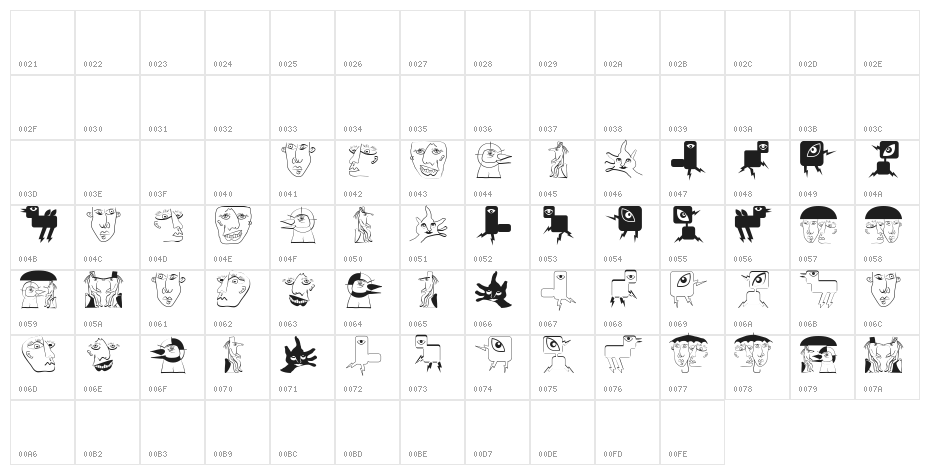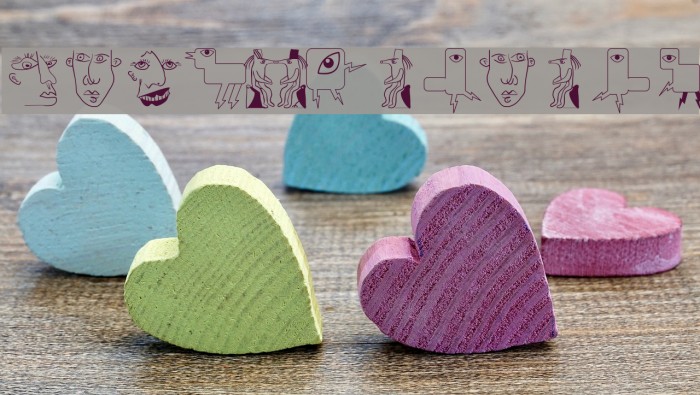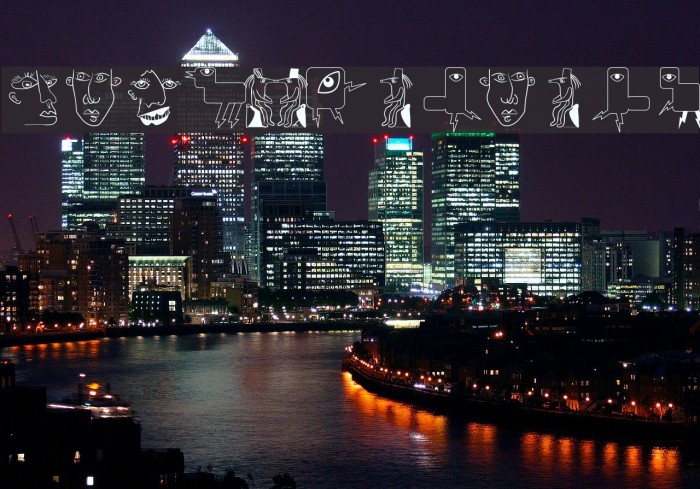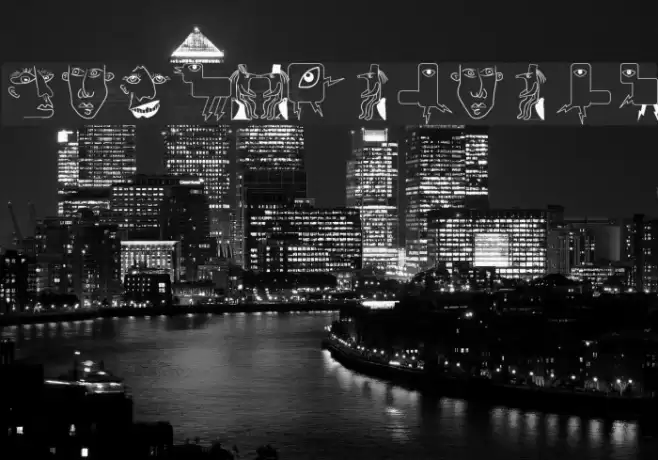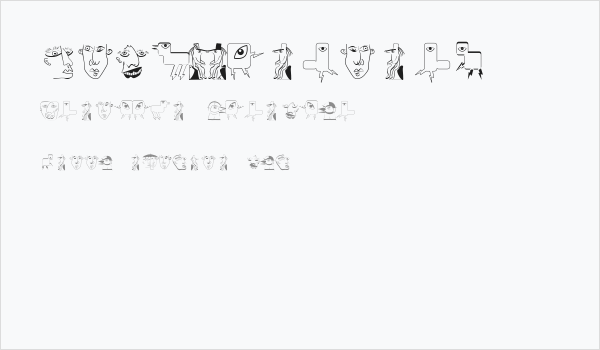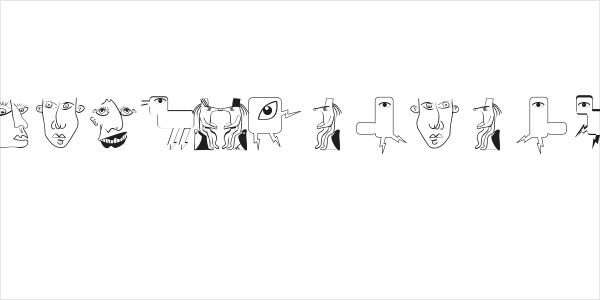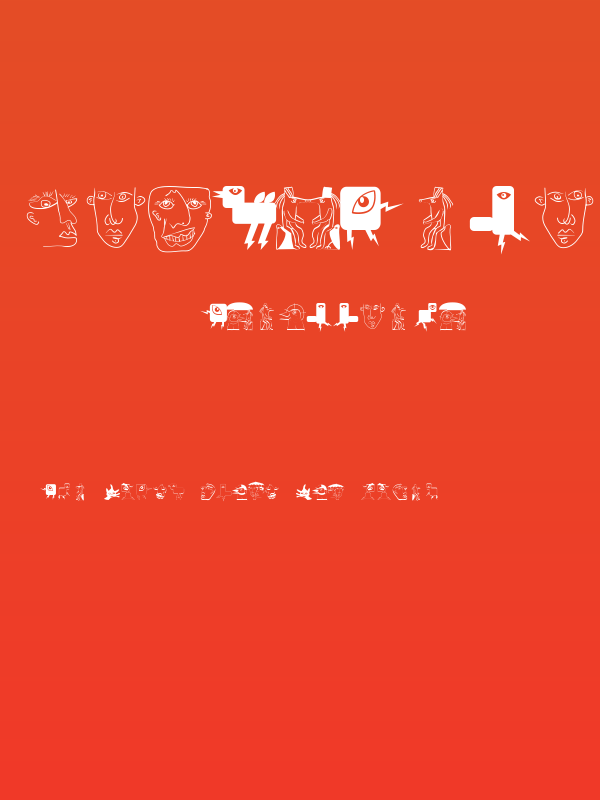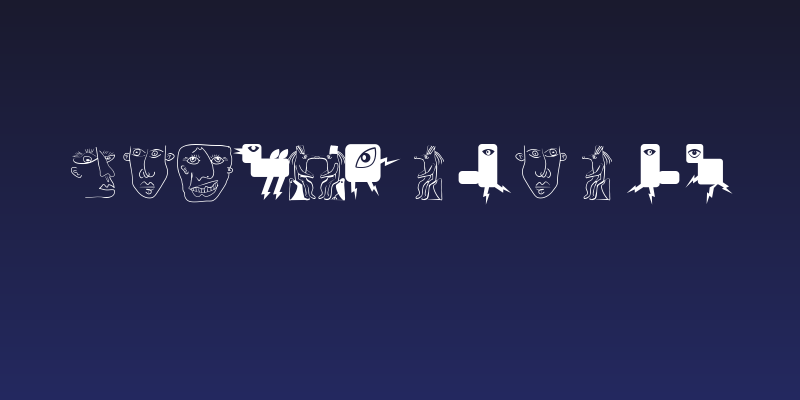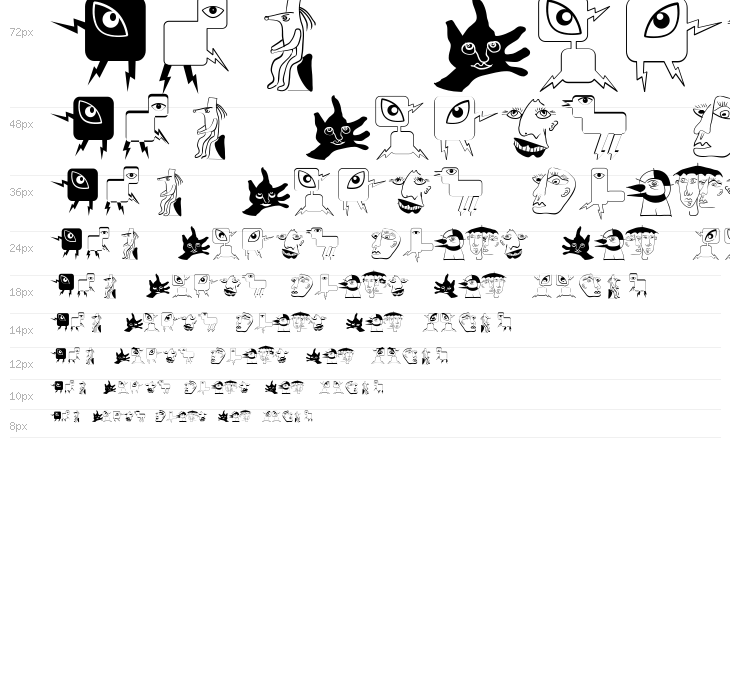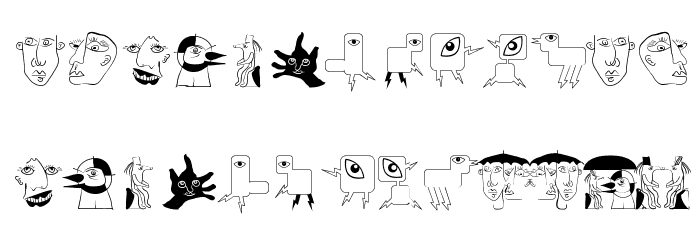
MankZieglers Font
MankZieglers Description
This font is a highly decorative and artistic set of characters, each designed with unique and abstract illustrations. The characters are composed of intricate line drawings that resemble surreal and whimsical figures, combining elements of human and animal forms with geometric shapes. The style is reminiscent of abstract art, with a playful and imaginative approach to each letter and symbol. The font does not adhere to traditional typographic conventions, instead offering a creative and expressive visual experience. It is ideal for projects that require a bold artistic statement, as each character is a standalone piece of art.
| Proposed Projects | Ideal for art exhibitions, creative posters, album covers, and any project seeking a bold artistic flair. |